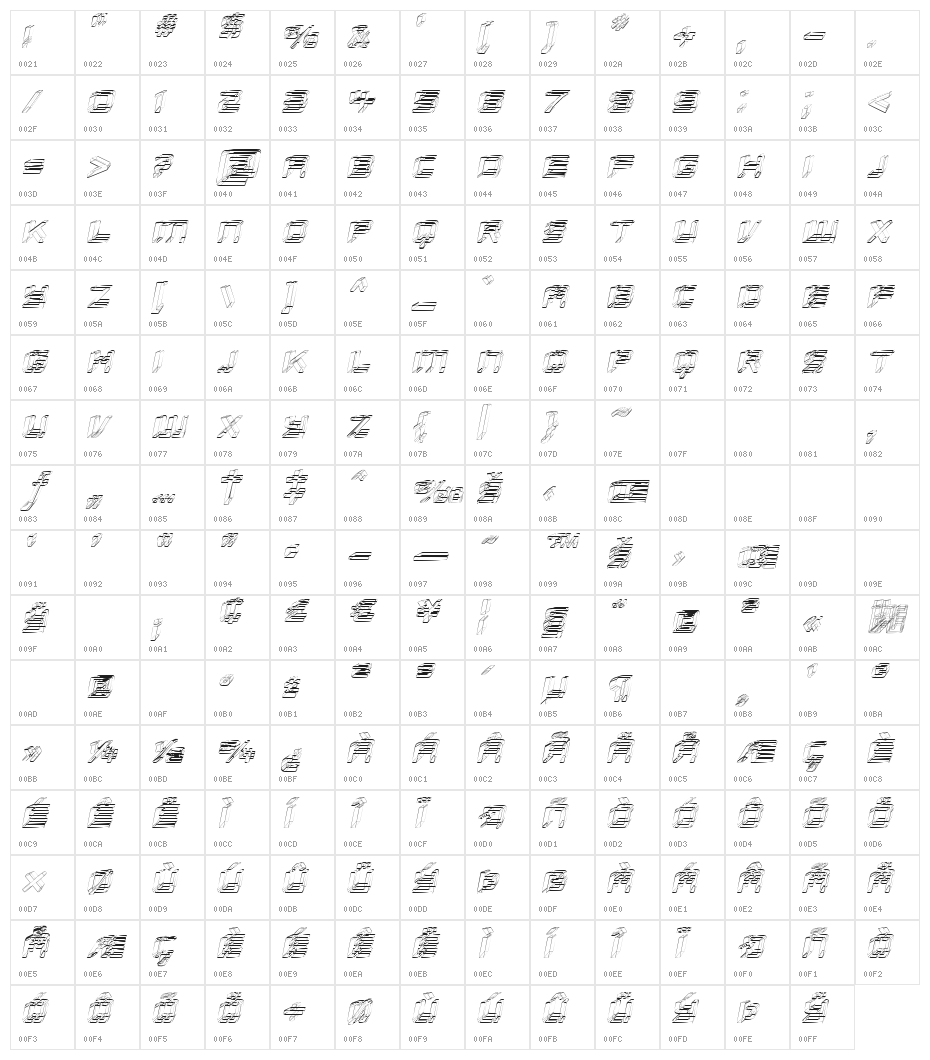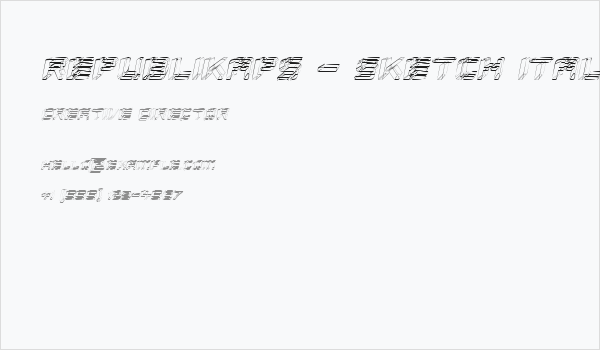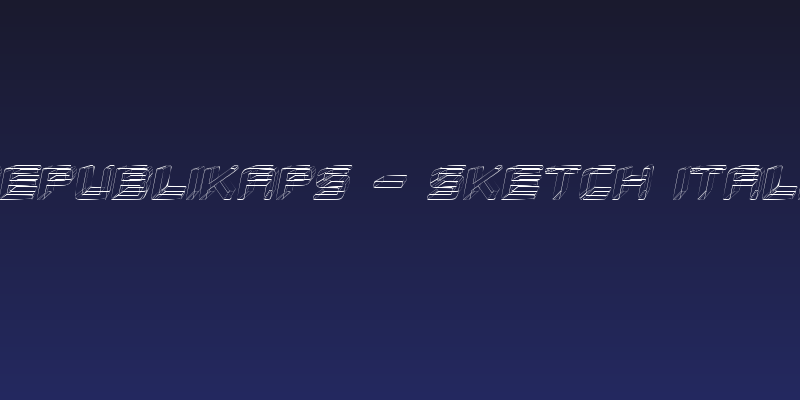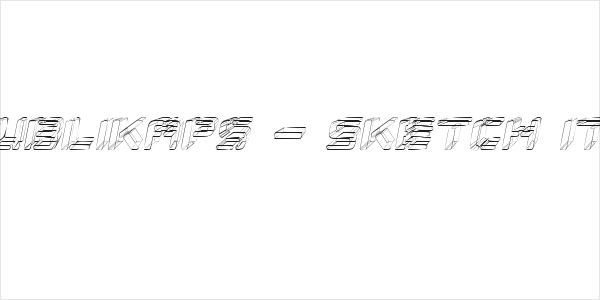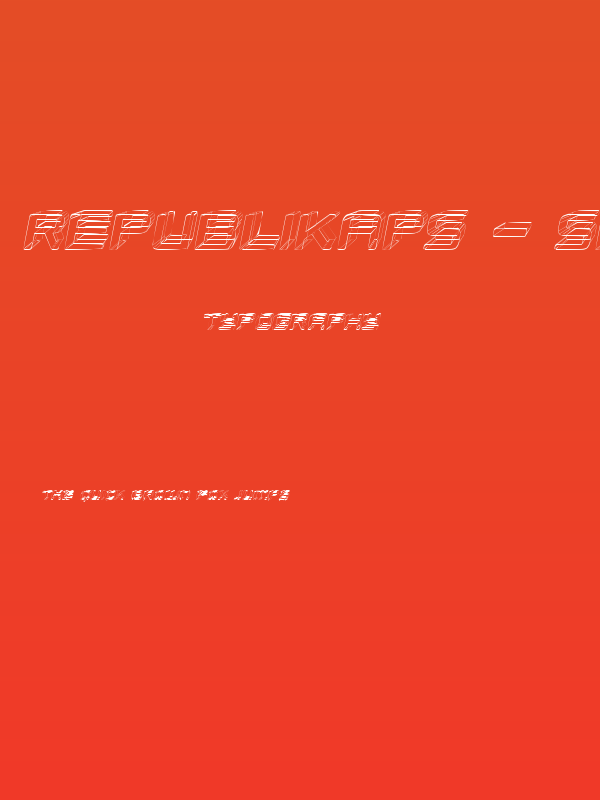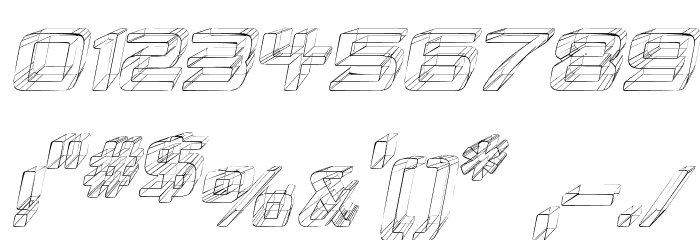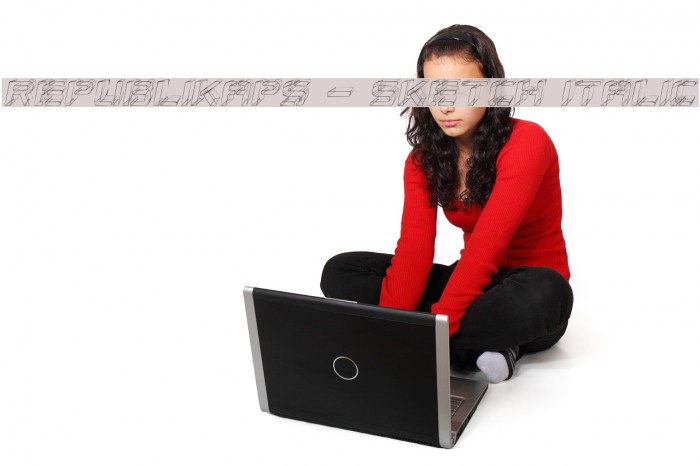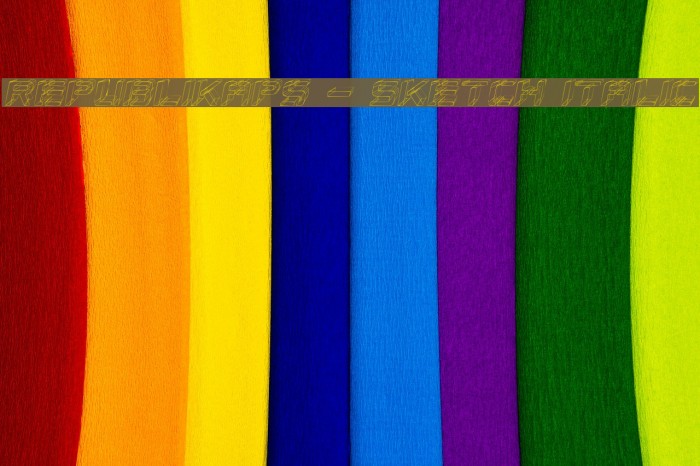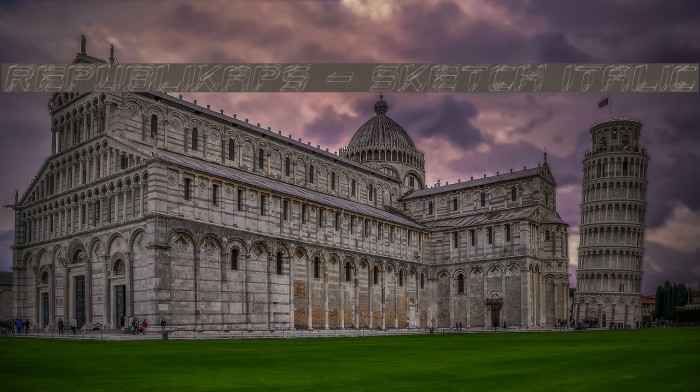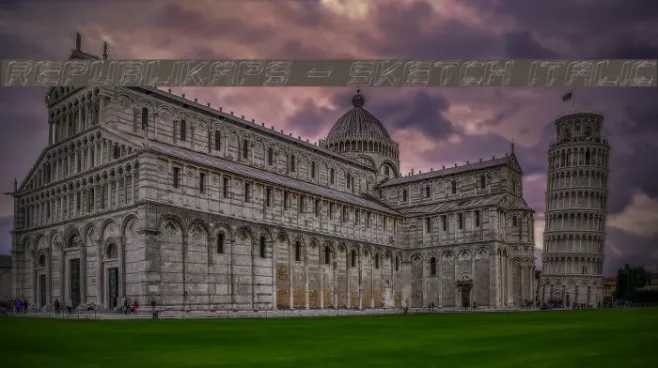
Republikaps - Sketch Italic Font
Republikaps - Sketch Italic Description
This font features a dynamic and sketch-like appearance, characterized by its italicized and angular letterforms. The design incorporates a three-dimensional effect with overlapping lines, giving it a hand-drawn and artistic feel. Each character is constructed with a series of parallel lines that create a sense of depth and movement. The uppercase and lowercase letters maintain a consistent style, while the numerals and special characters follow the same sketchy aesthetic. This font is ideal for projects that require a creative and informal touch, offering a unique visual impact.
| Use Case | Logos, Headlines, Posters |
| Proposed Projects | Perfect for artistic projects, creative branding, posters, and informal invitations. |